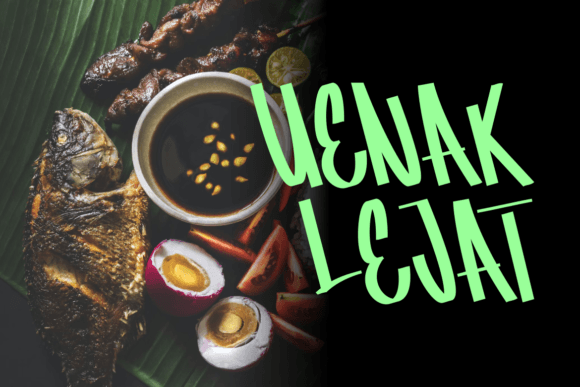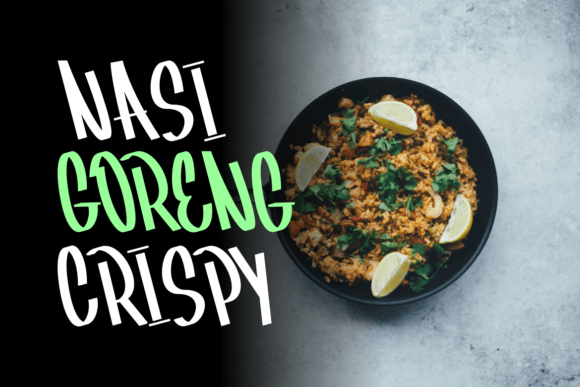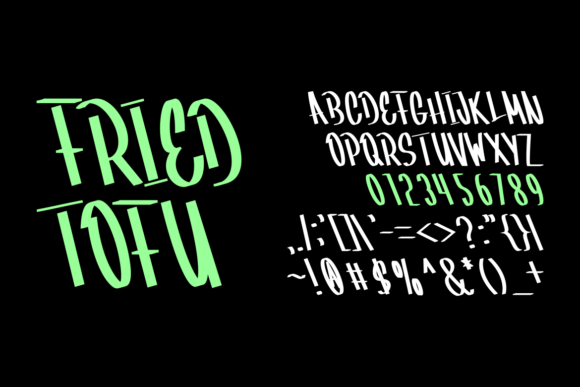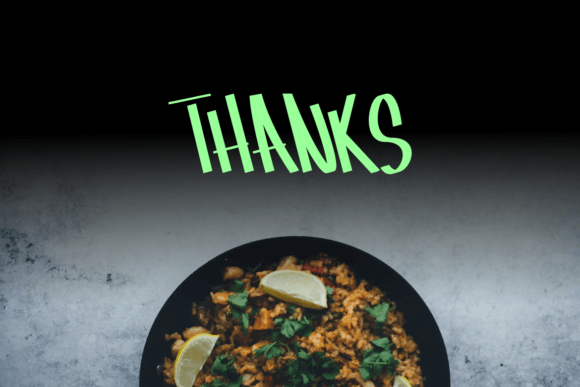
Fried Tofu Font: The Quirky Graffiti-Inspired Handwritten Font You Need
Are you tired of using the same old fonts in your designs? Do you want to add a touch of fun and quirkiness to your projects? Look no further than the Fried Tofu Font! This graffiti-inspired handwritten font is perfect for designers and crafters who want to add a unique and trendy touch to their work.
What is Fried Tofu Font?
Fried Tofu Font is a fun and quirky graffiti-inspired handwritten font that is sure to make your designs stand out. With its bold and playful letters, this font is perfect for adding a touch of personality to your projects. Whether you’re designing a logo, creating a social media graphic, or crafting a handmade project, Fried Tofu Font is the perfect choice.
Features of Fried Tofu Font
- Graffiti-inspired design: Fried Tofu Font has a unique graffiti-inspired design that sets it apart from other fonts. Its bold and playful letters are sure to add a touch of fun and quirkiness to your designs.
- Handwritten style: This font has a handwritten style that gives it a personal and organic feel. It’s perfect for adding a touch of warmth and personality to your projects.
- Trendy and modern: Fried Tofu Font is a trendy and modern font that is sure to make your designs look fresh and up-to-date.
- Easy to read: Despite its bold and playful design, Fried Tofu Font is easy to read and understand. This makes it perfect for use in a variety of projects, from logos and graphics to crafts and DIY projects.
Uses for Fried Tofu Font
Fried Tofu Font is a versatile font that can be used in a variety of projects. Here are some ideas to get you started:
- Logos and branding: Use Fried Tofu Font to create a unique and memorable logo for your business or brand.
- Social media graphics: Add a touch of fun and quirkiness to your social media graphics with Fried Tofu Font.
- Crafts and DIY projects: Use Fried Tofu Font to add a personal touch to your handmade crafts and DIY projects.
- Signs and posters: Fried Tofu Font is perfect for creating eye-catching signs and posters.
Why Choose Fried Tofu Font?
So why choose Fried Tofu Font for your next project? Here are just a few reasons:
- Unique and quirky design: Fried Tofu Font has a unique and quirky design that sets it apart from other fonts.
- High-quality design: This font has a high-quality design that is sure to make your projects look professional and polished.
If you’re looking for a fun and quirky font to add to your designs, look no further than Fried Tofu Font. This graffiti-inspired handwritten font is perfect for designers and crafters who want to add a unique and trendy touch to their work. With its bold and playful letters, easy-to-read design, and versatile uses, Fried Tofu Font is the perfect choice for your next project.